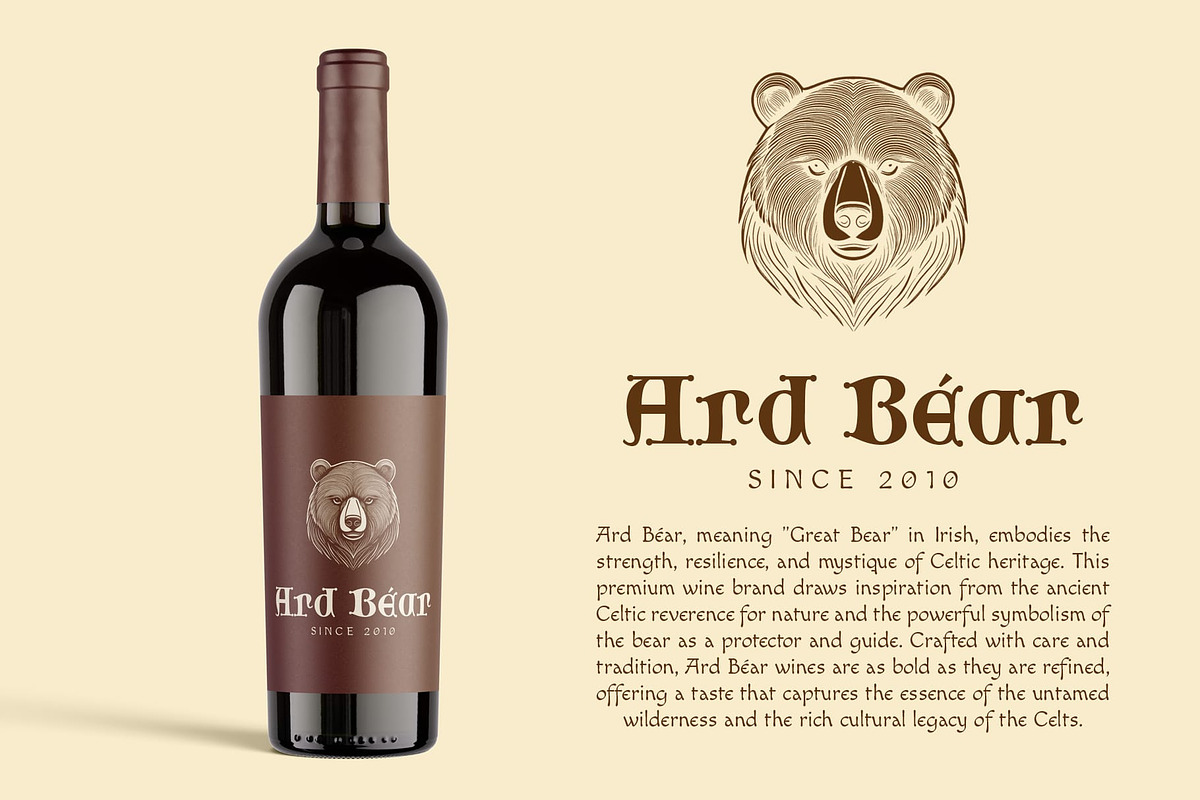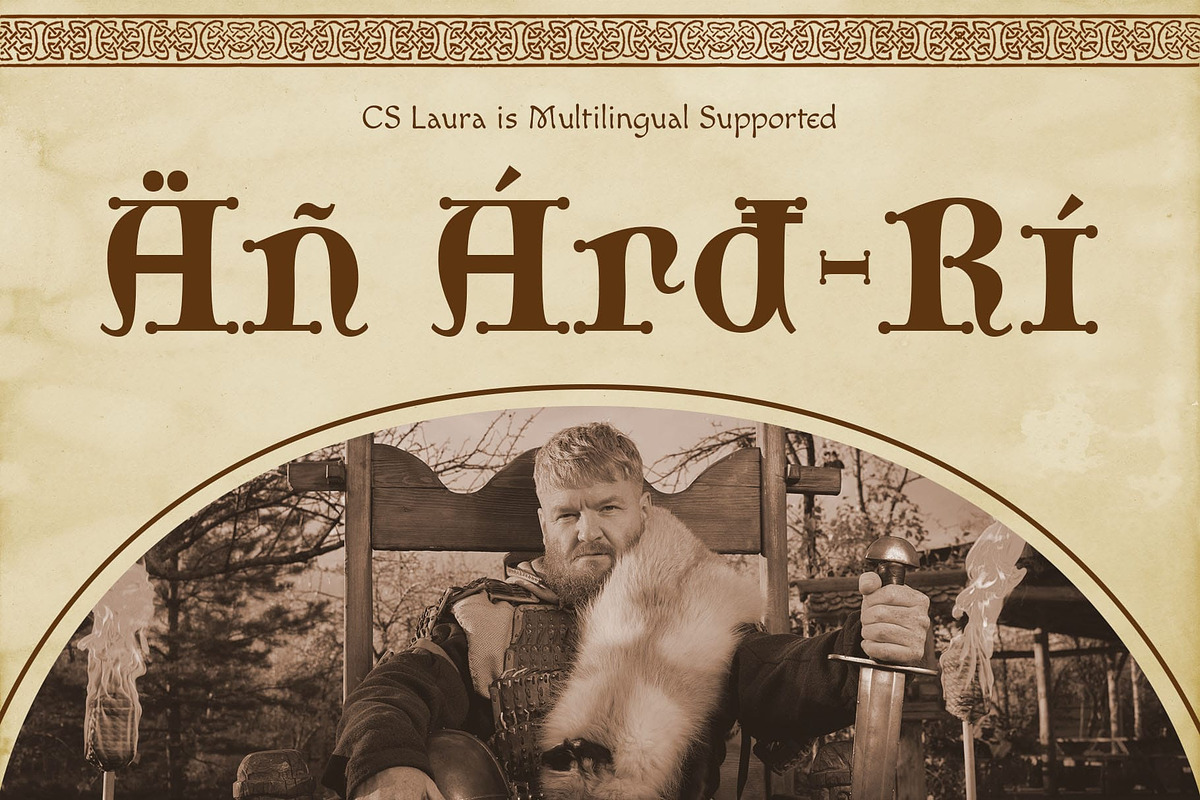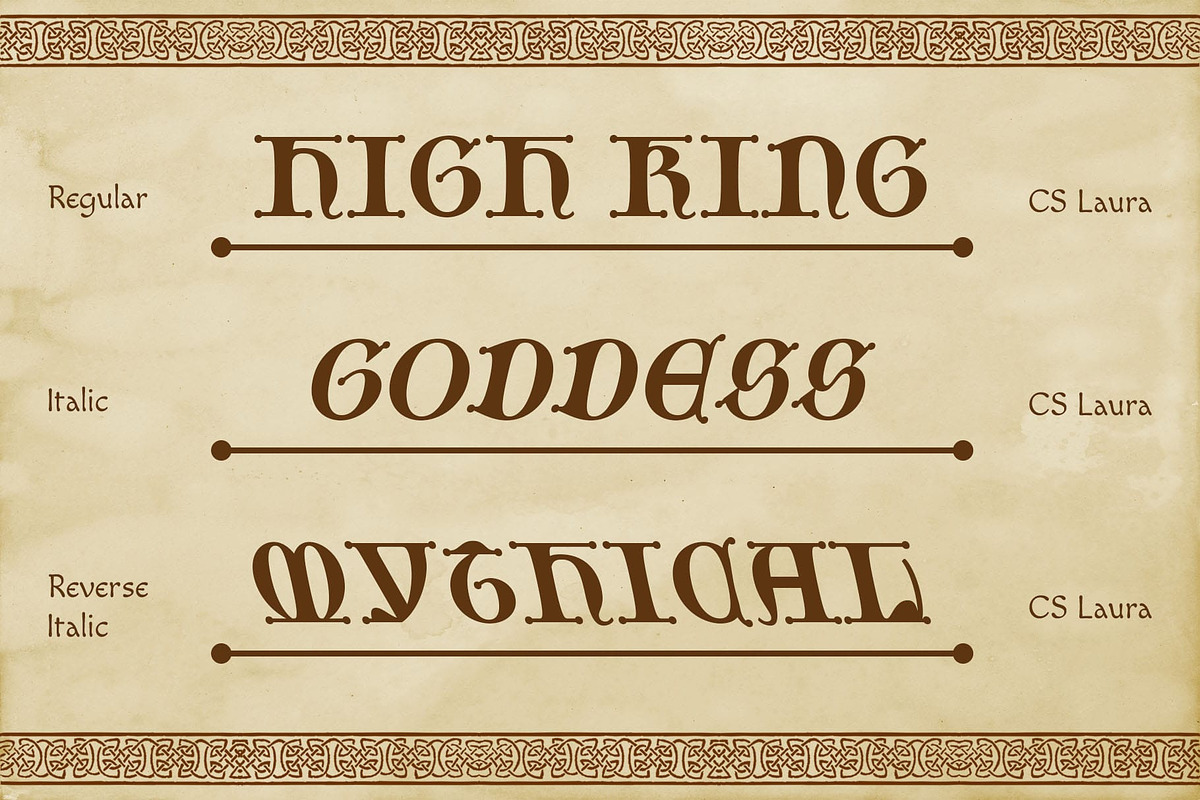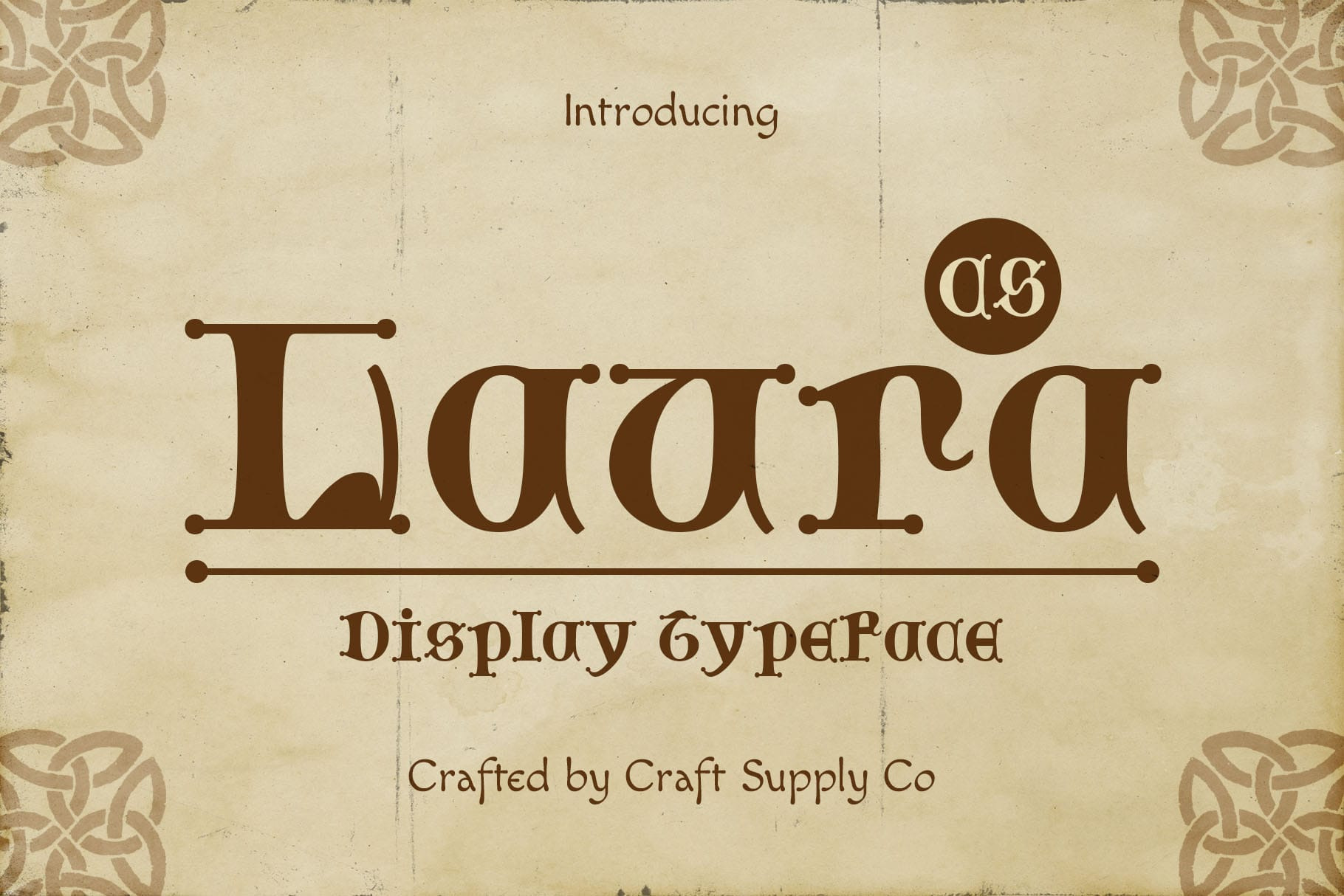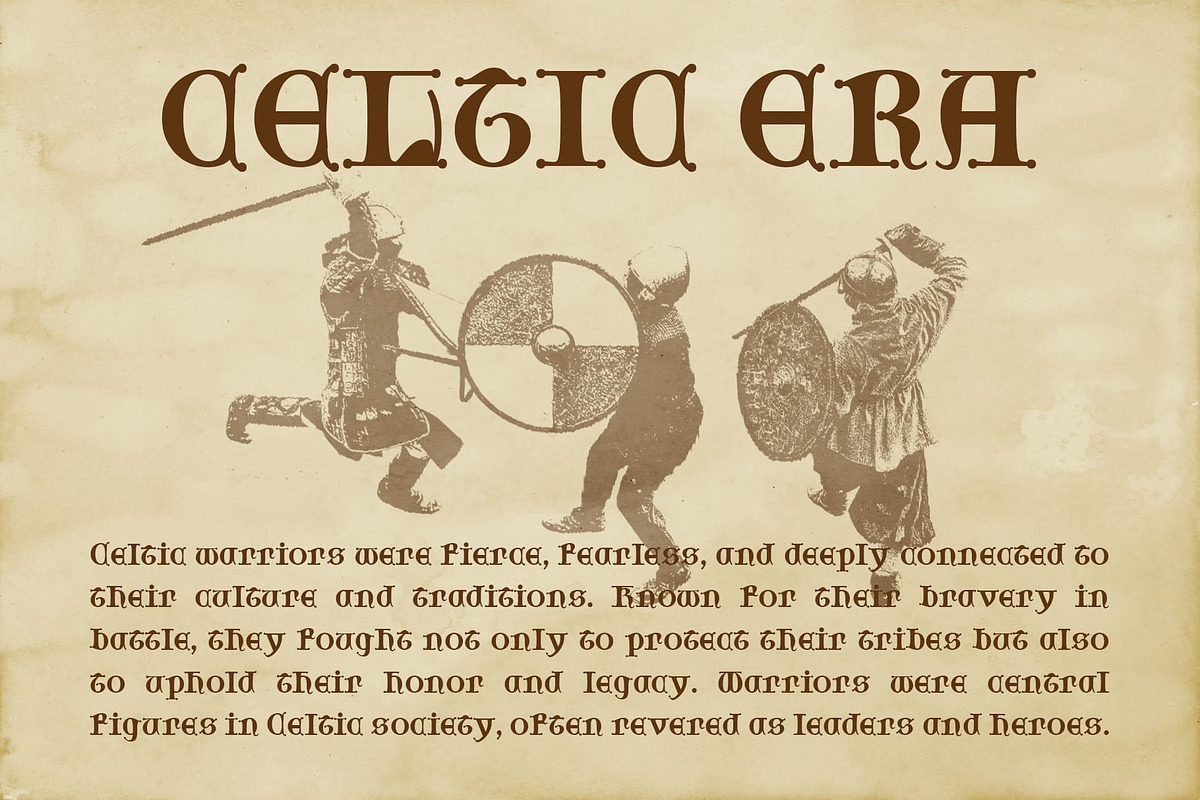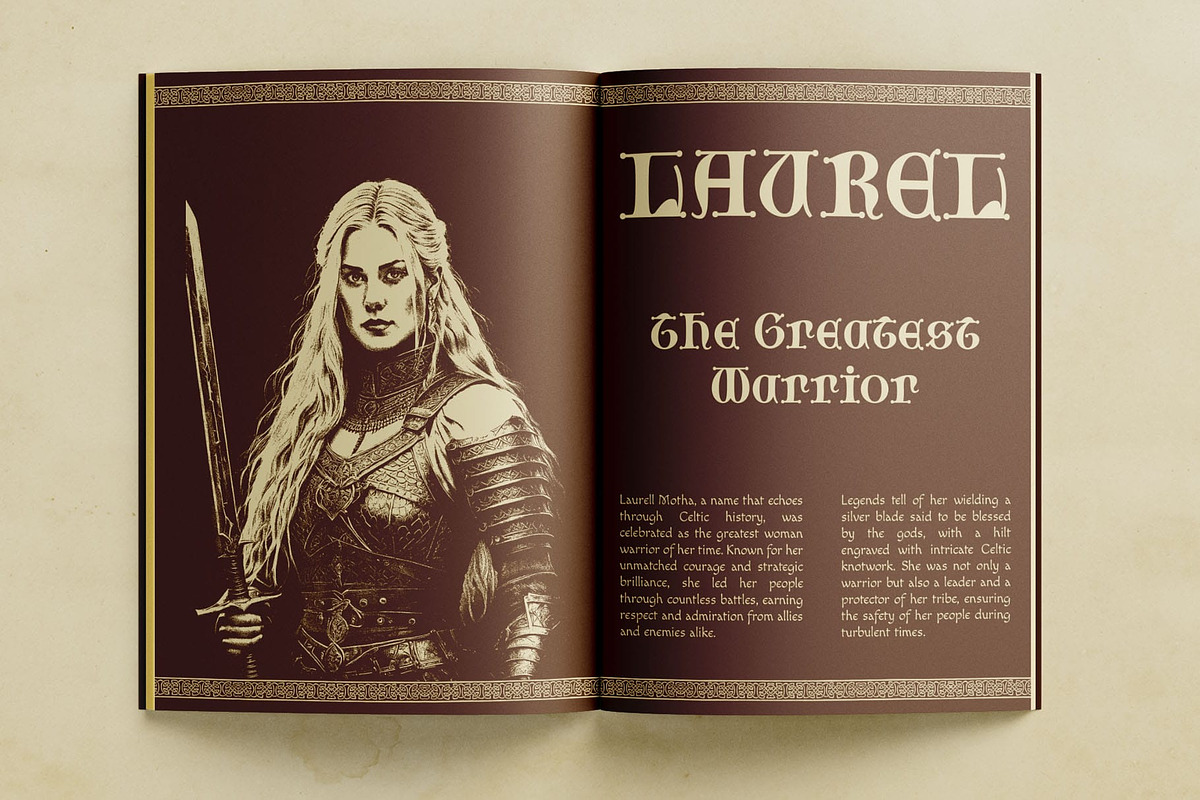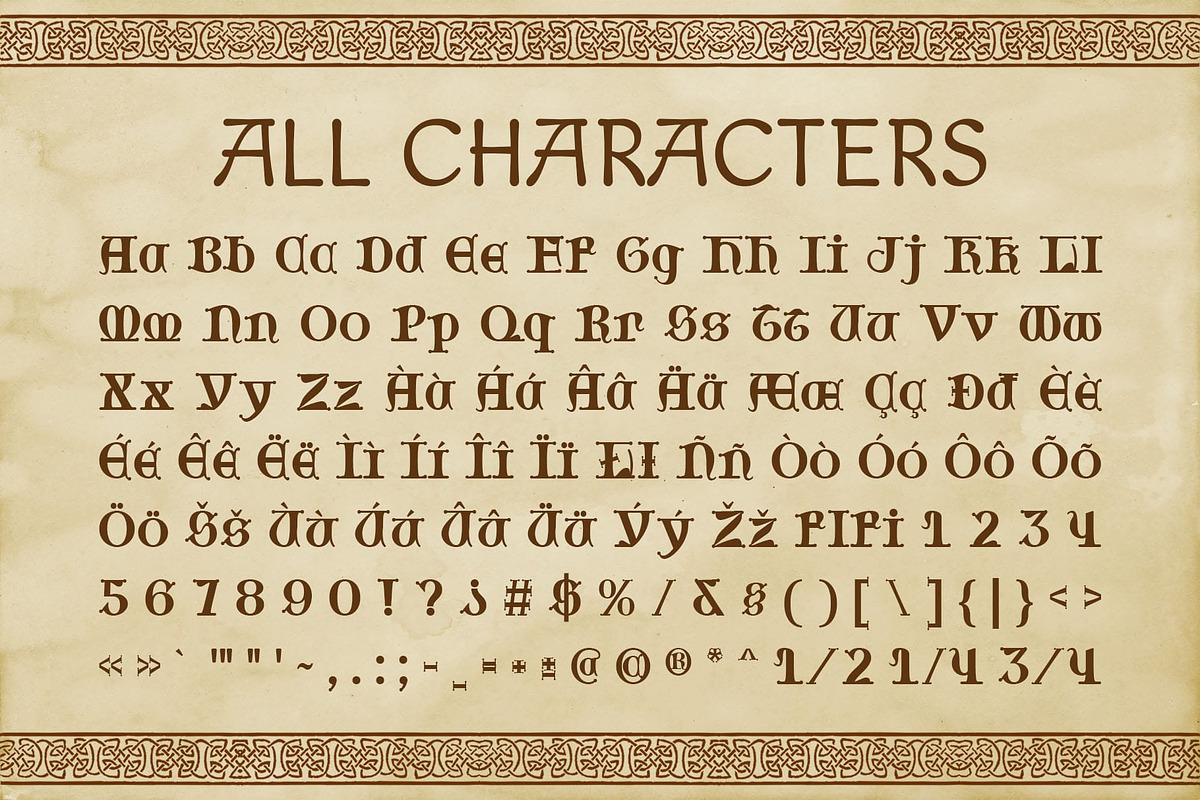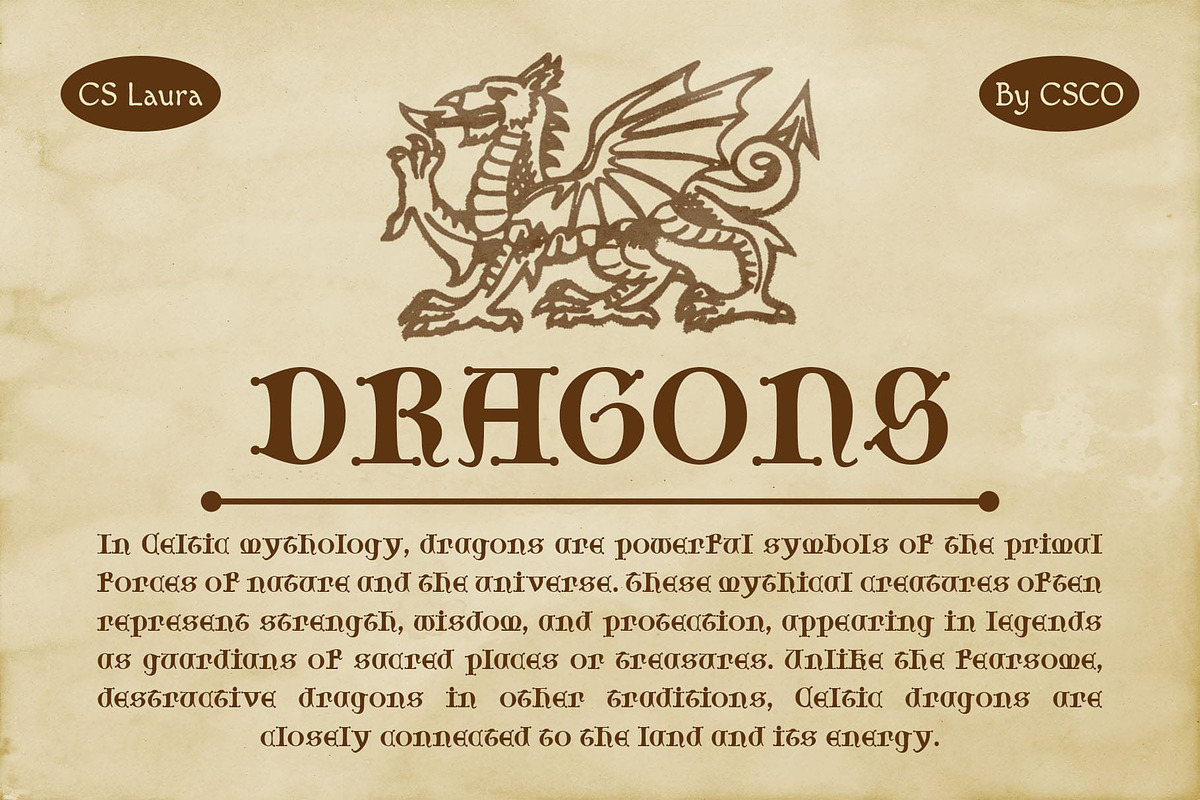
CS Laura – Gothic Uncial Font
CS Laura – Gothic Uncial Font: A Timeless Blend of Elegance and Tradition
Gothic Uncial Display Font CS Laura is a captivating Gothic Uncial display font that seamlessly combines the historical grace of uncial script with the dramatic elements of Gothic design. Its rounded, flowing letterforms are paired with bold strokes and intricate details, evoking a sense of antiquity and refined artistry. The font’s distinct style pays homage to the medieval period, making it a perfect choice for designs steeped in tradition and history.
Aesthetic Versatility with Historical Charm CS Laura’s unique letterforms reflect a blend of smooth curves and bold structure, offering a harmonious balance between elegance and strength. The design is versatile, working beautifully in projects that aim to convey a medieval or cultural aesthetic. Its rich textures and timeless style make it ideal for branding, book covers, or event designs that seek to capture the essence of heritage.
Perfect for Medieval and Historical Themes This font is tailored for projects inspired by history, fantasy, or tradition. Whether you’re creating materials for a historical novel, designing a cultural event poster, or branding a business rooted in tradition, CS Laura delivers an atmosphere of authenticity and sophistication. Its Gothic Uncial style draws viewers into a world of timeless elegance.